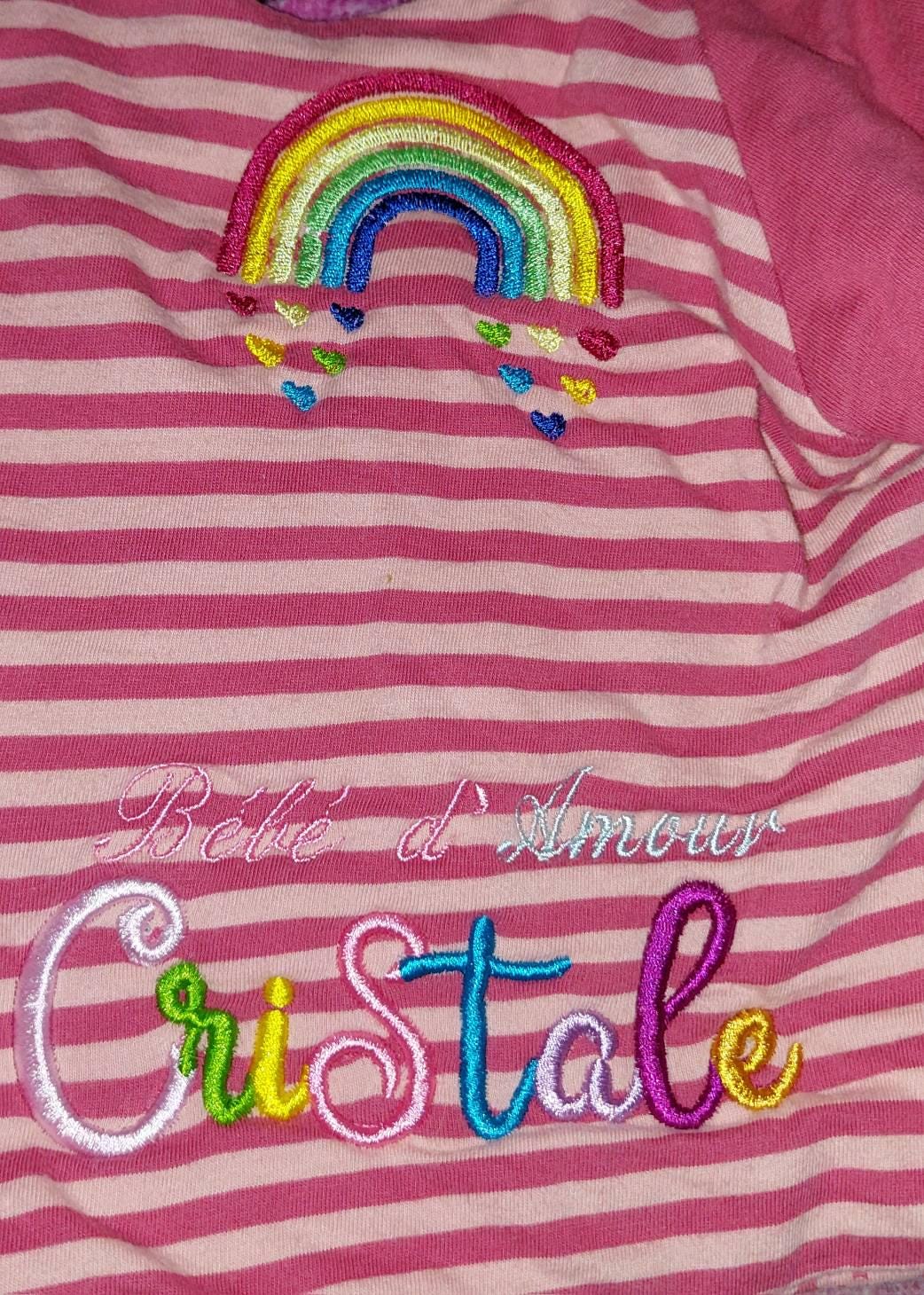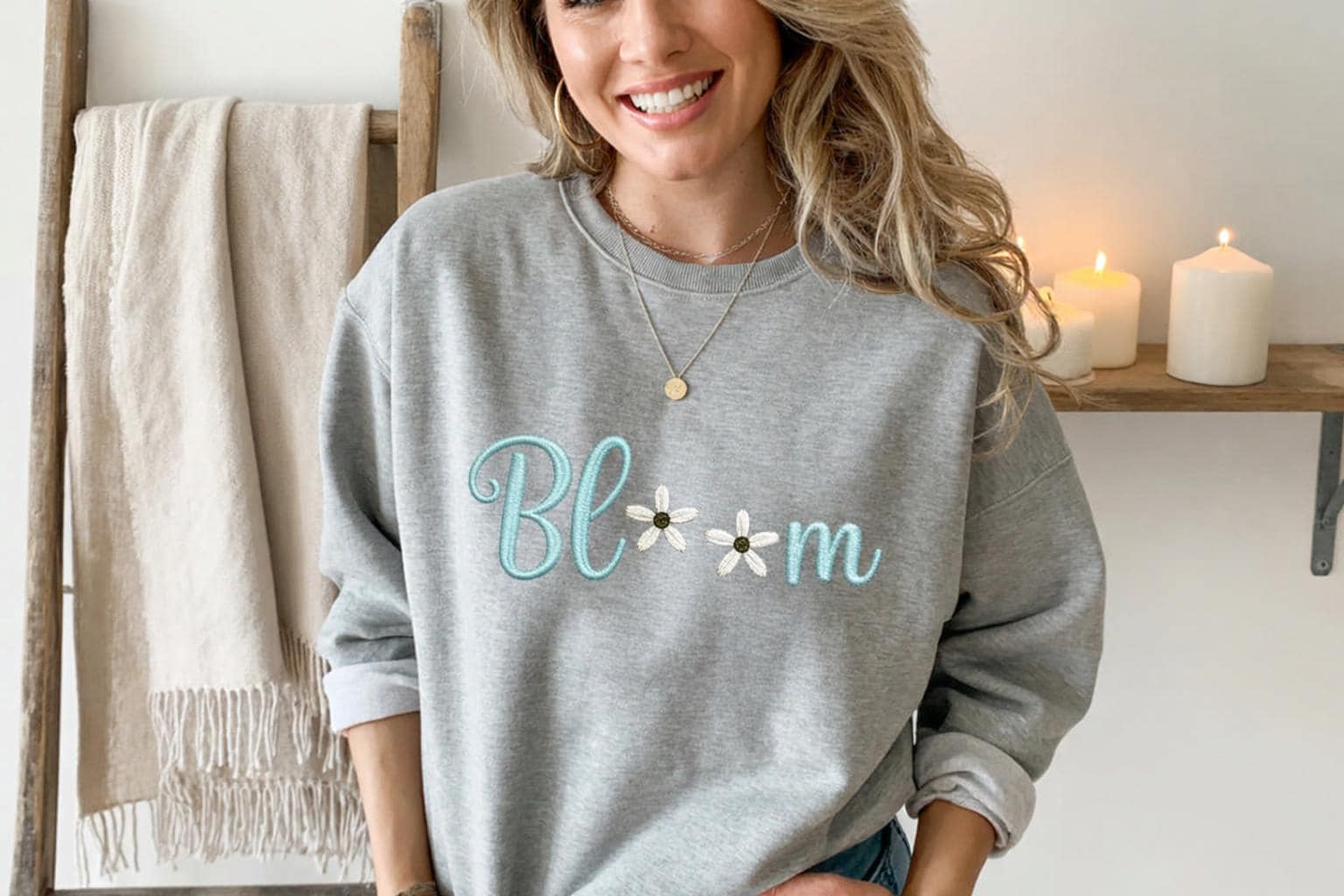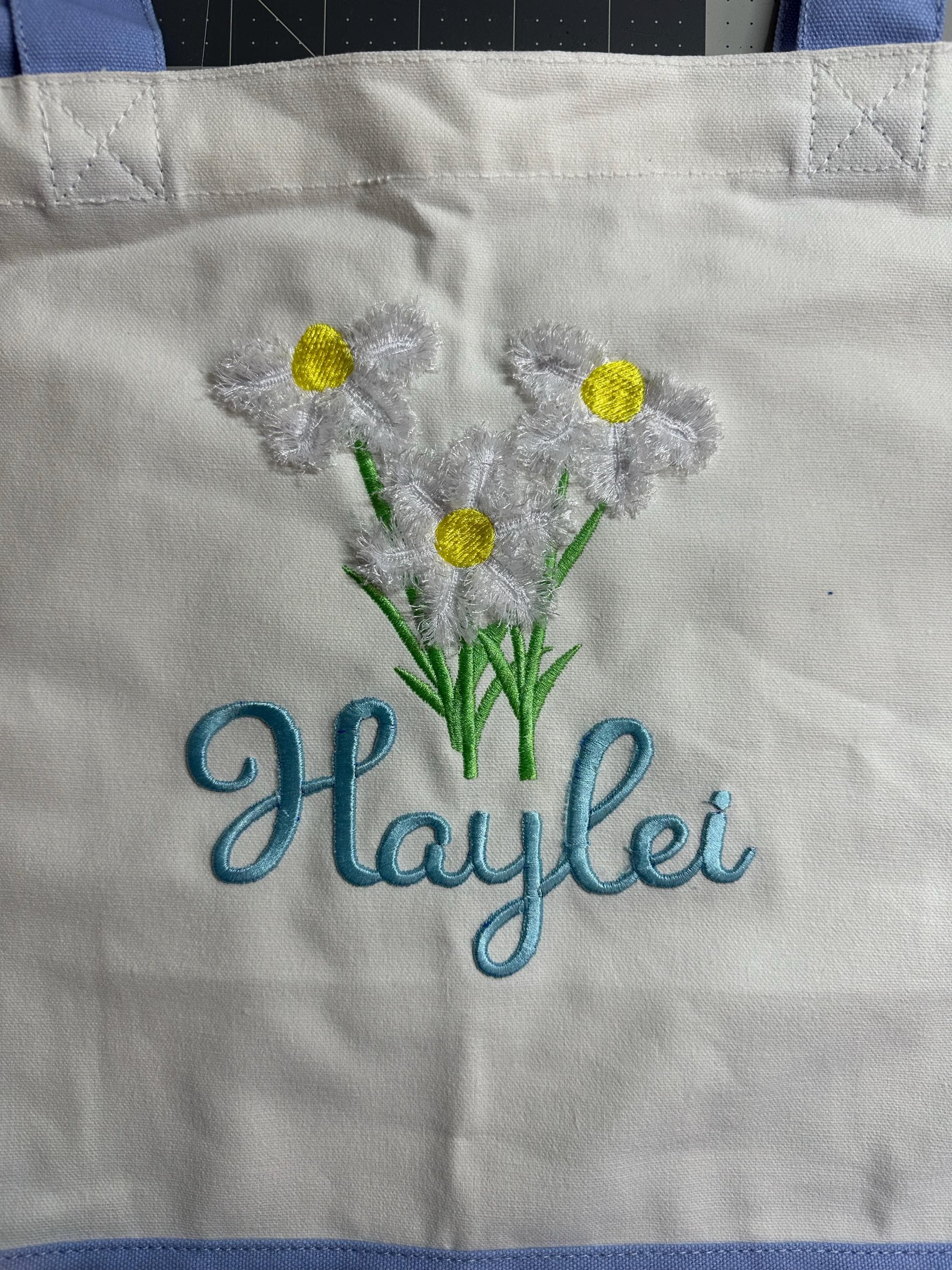
Pop Puff Embroidery font machine embroidery designs 3D raised puffy foam alphabet 1.8, 2, 2.8, 3.5 in monogram handwritten script font, BX
Whole alphabet A-Z uppercase and lowercase letters, and numbers 0-9
For this design puffy foam is required. I'm using Gunold puffy foam thickness 3 mm.
Tres joli, mais beaucoup moins en relief que sur la photo. J'ai passé deux fois pour avoir plus de volume.
This is a beautiful font!
I really stitched out nice!